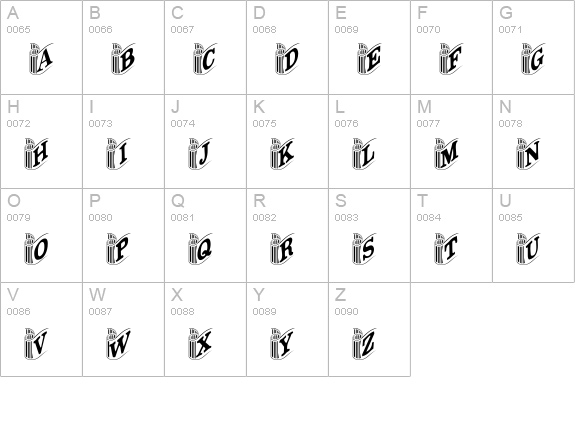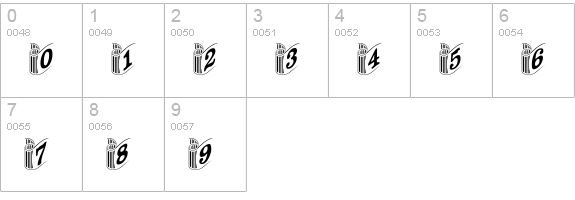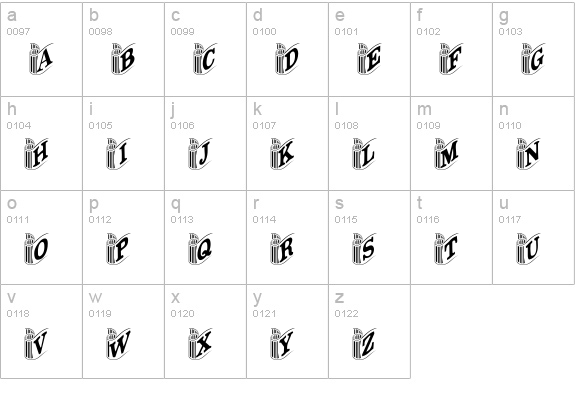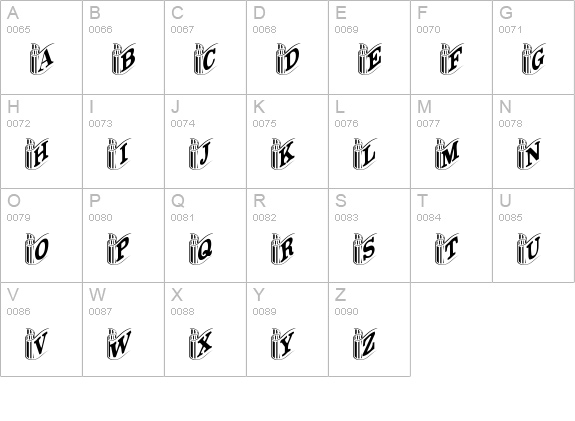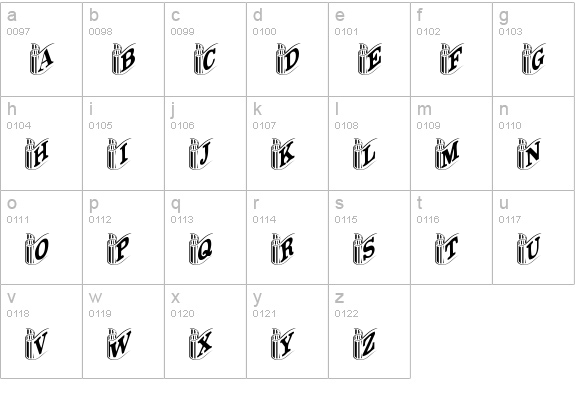
GE Banners Font Details
Introducing GE Banners font, a versatile typeface that exudes elegance and sophistication. With its classic yet modern design, this font is perfect for a wide range of projects, from branding to editorial design. The sharp, clean lines of GE Banners font make it ideal for creating eye-catching headlines and titles that demand attention. What's even better is that GE Banners font is available for free download at FontsMarket.com. So whether you're a designer looking to add a touch of refinement to your work or a business owner seeking a unique font for your marketing materials, GE Banners font is the perfect choice. Download it today and elevate your designs to the next level with this stunning typeface.